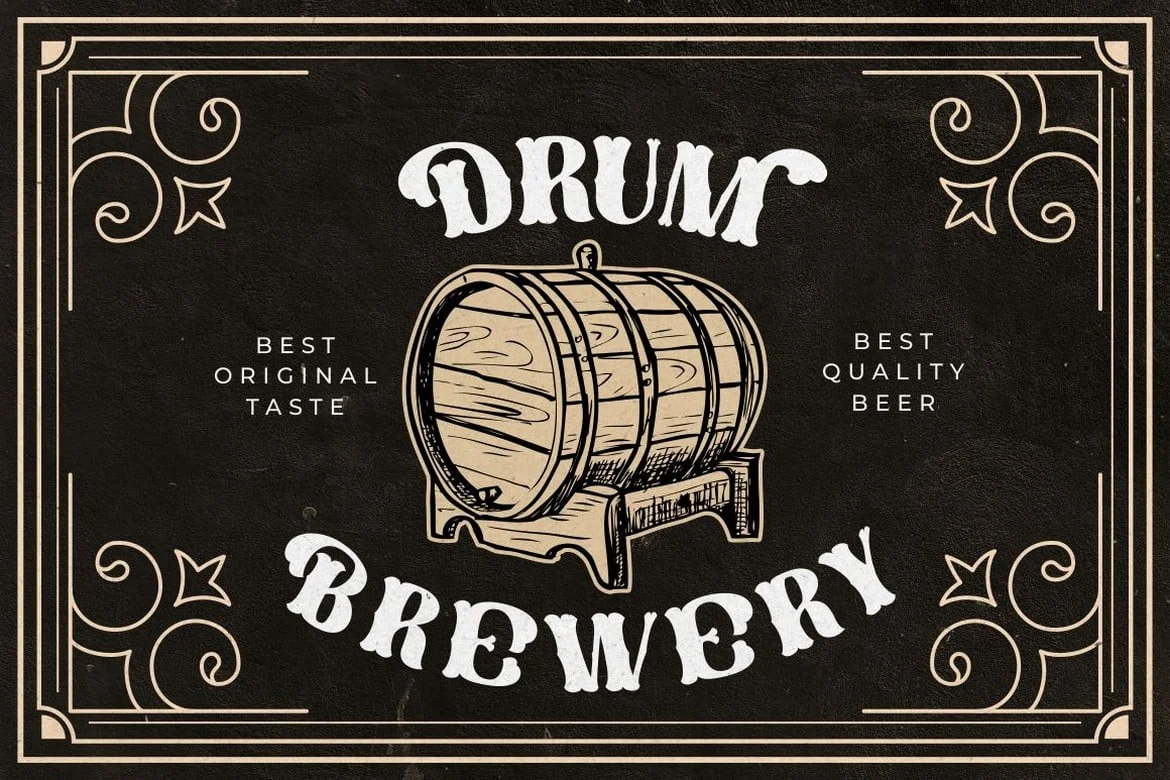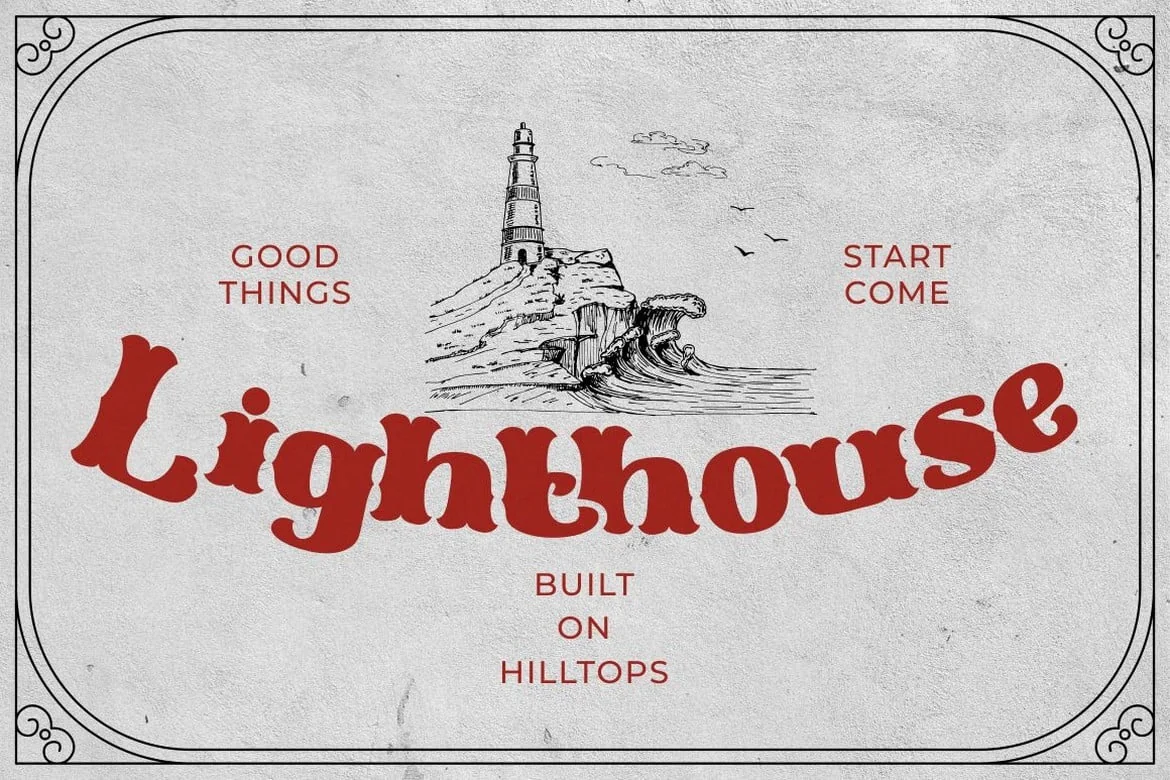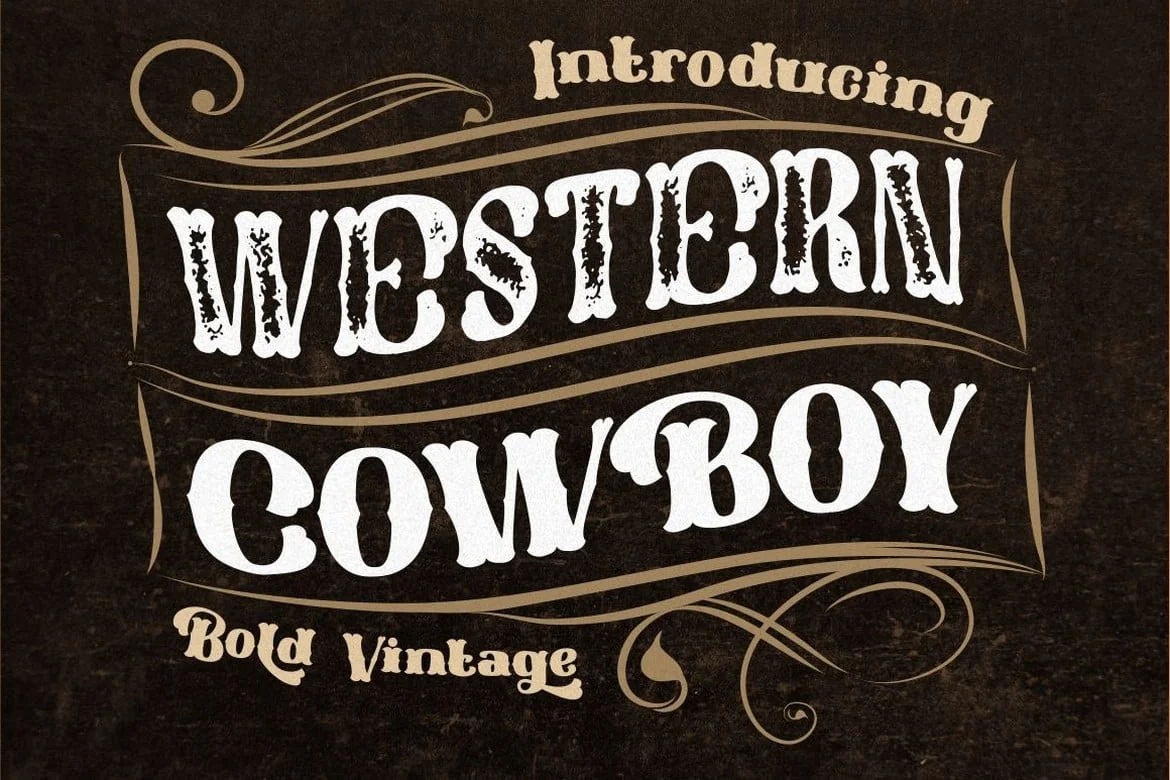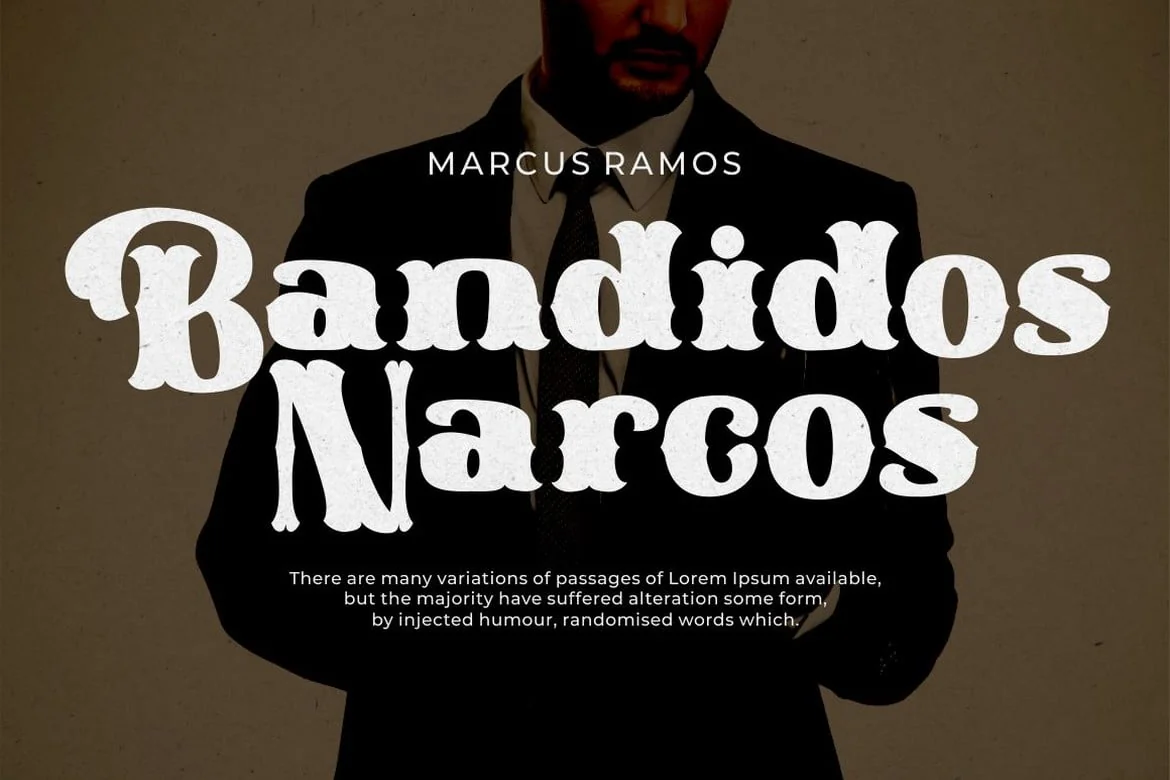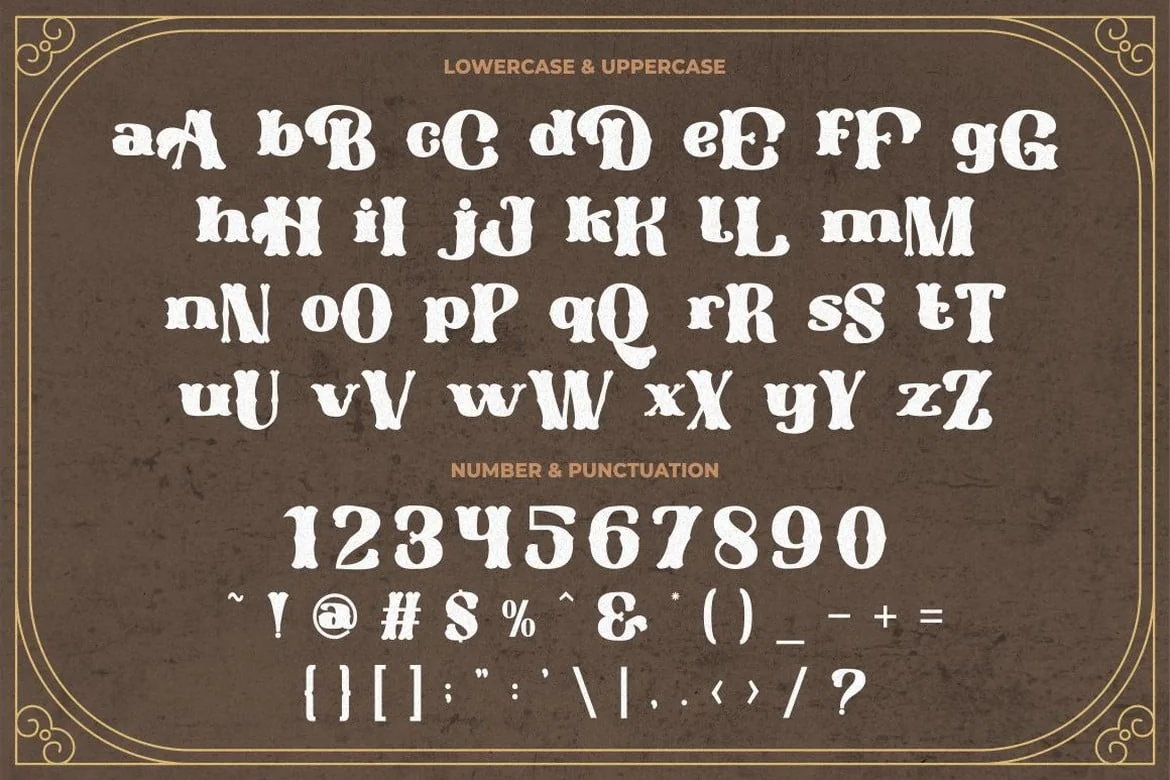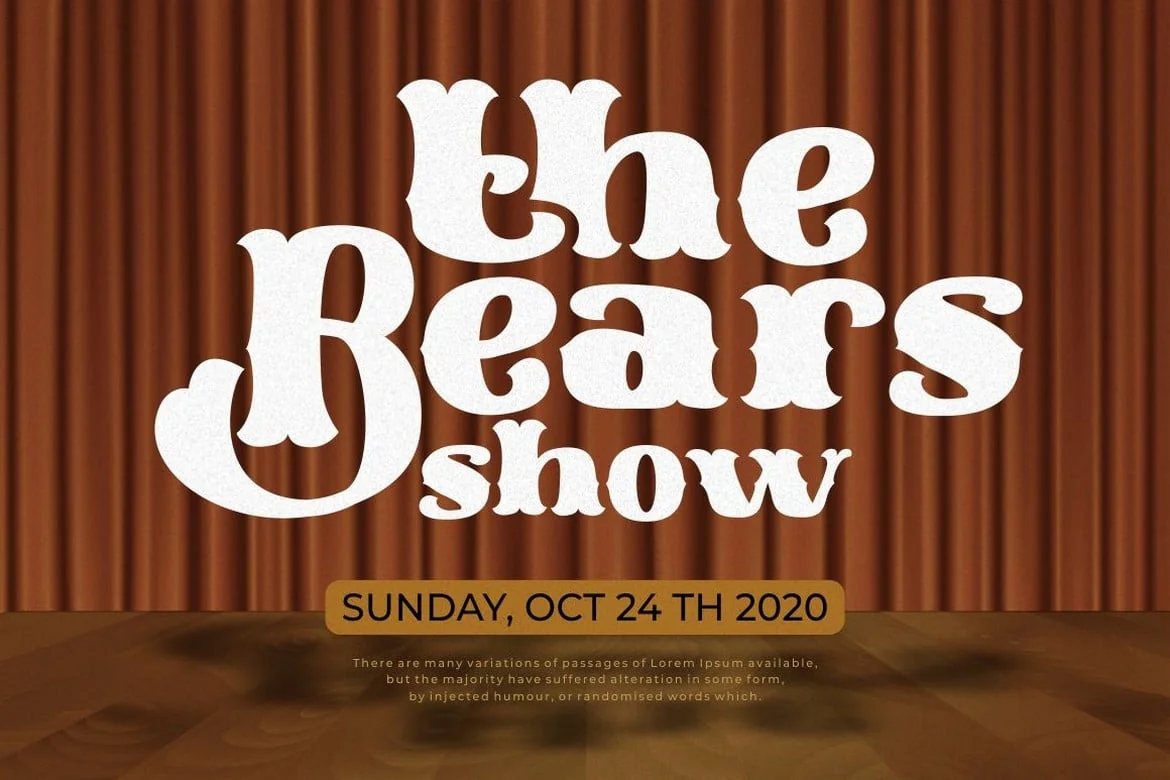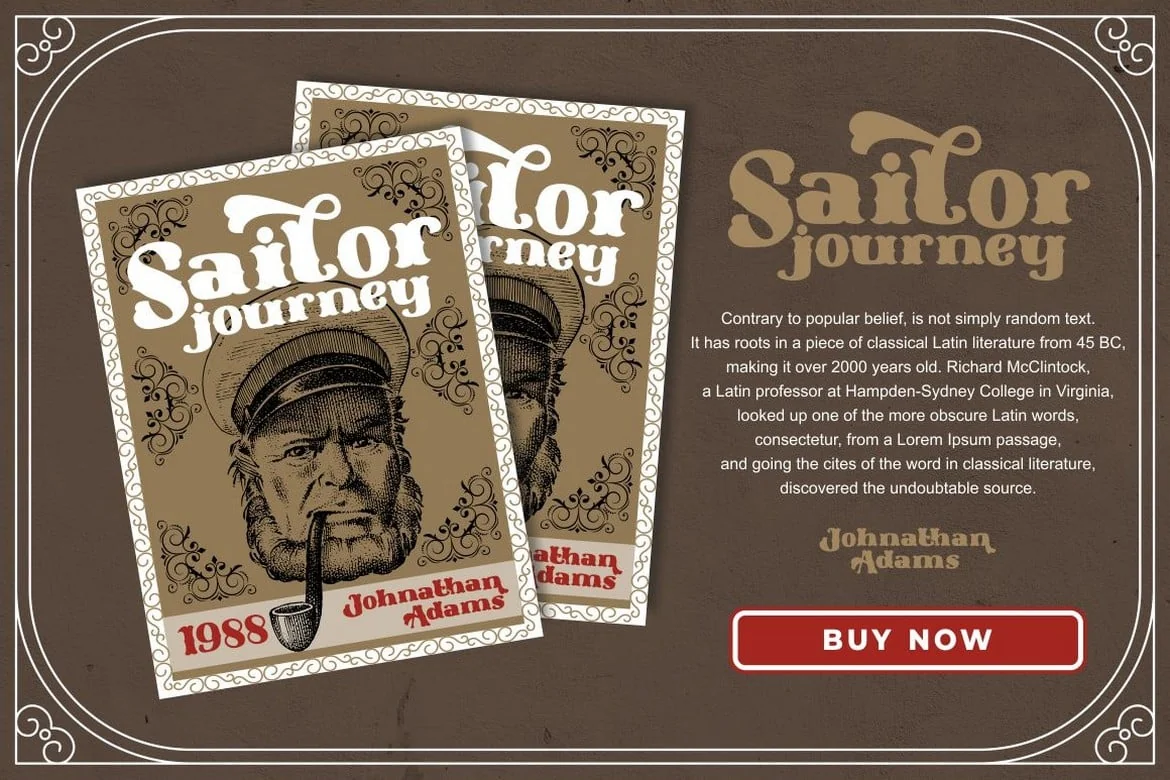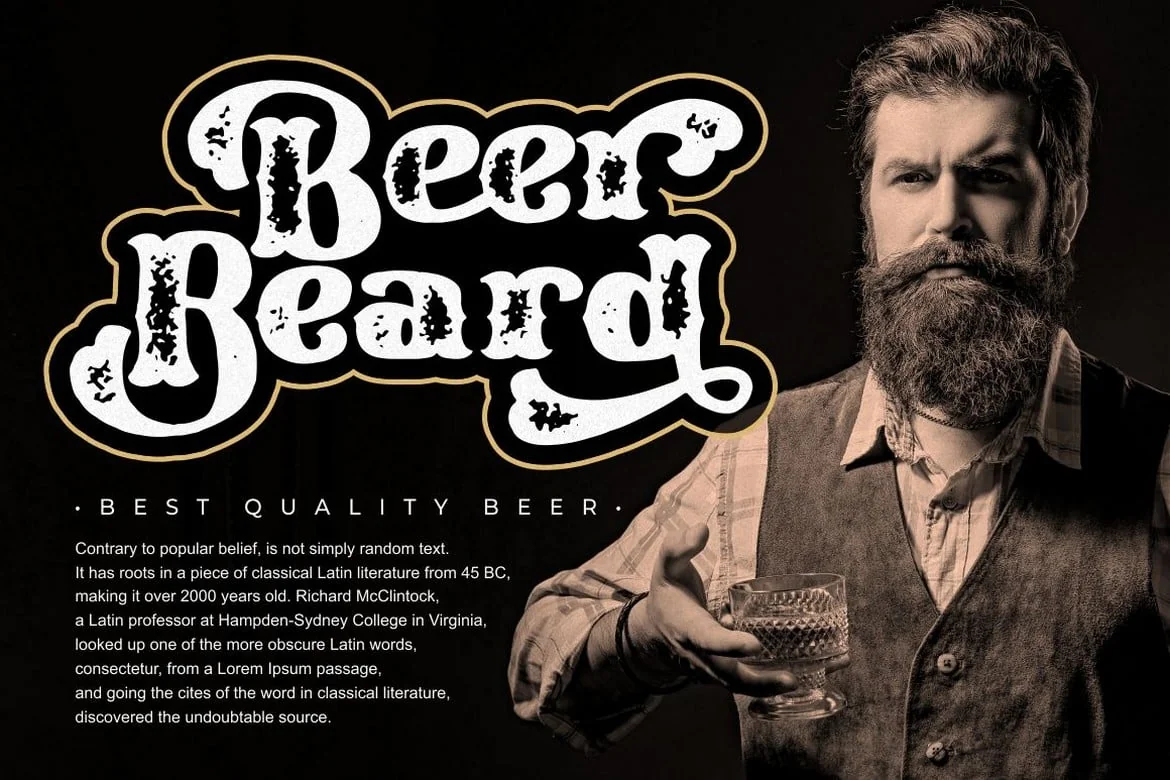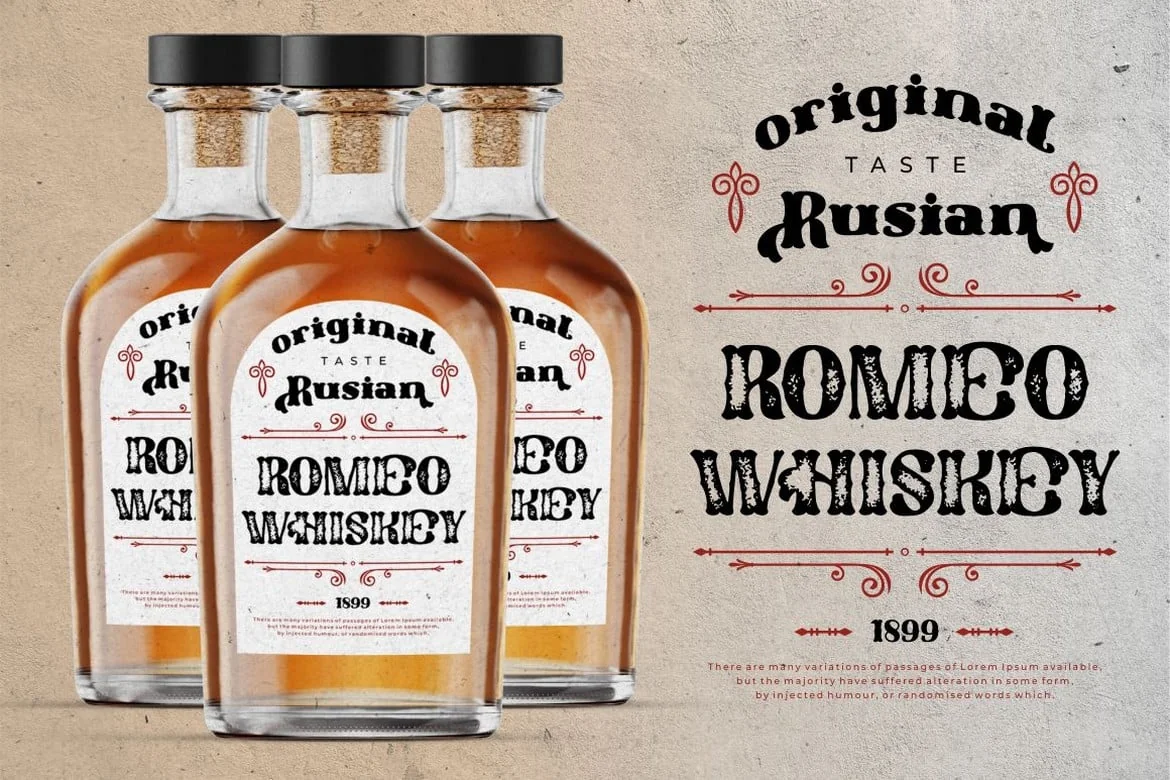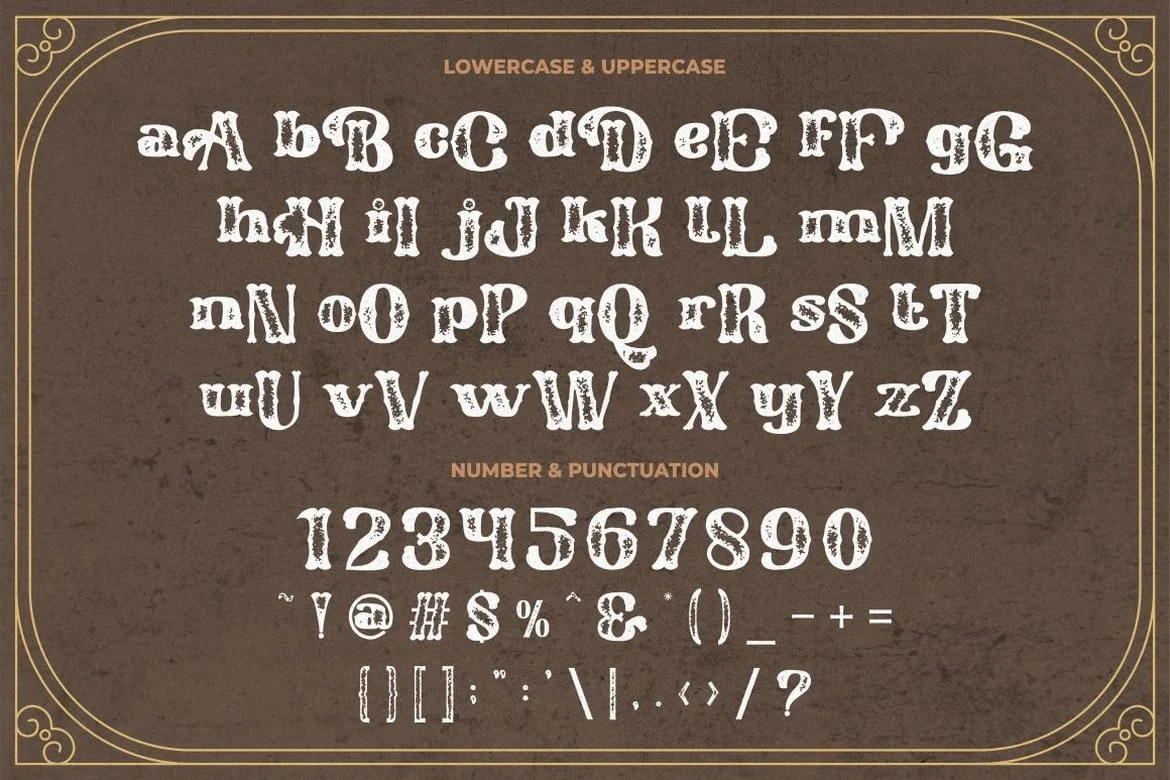
Western Cowboy – Bold Vintage Font
Western Cowboy – Bold Vintage Font. Western Cowboy is a bold vintage inspired by 1970s posters but made flexible enough for everyday use. The baseline of Western Cowboy is also not the same, so it makes Western Cowboy font seem irregular, What makes Western Cowboy unique is the difference in bold with vintage touch.
Western Cowboy best uses for title, invitation, heading, cover, poster, logos, quotes, product packaging, merchandise, social media & greeting cards and many more